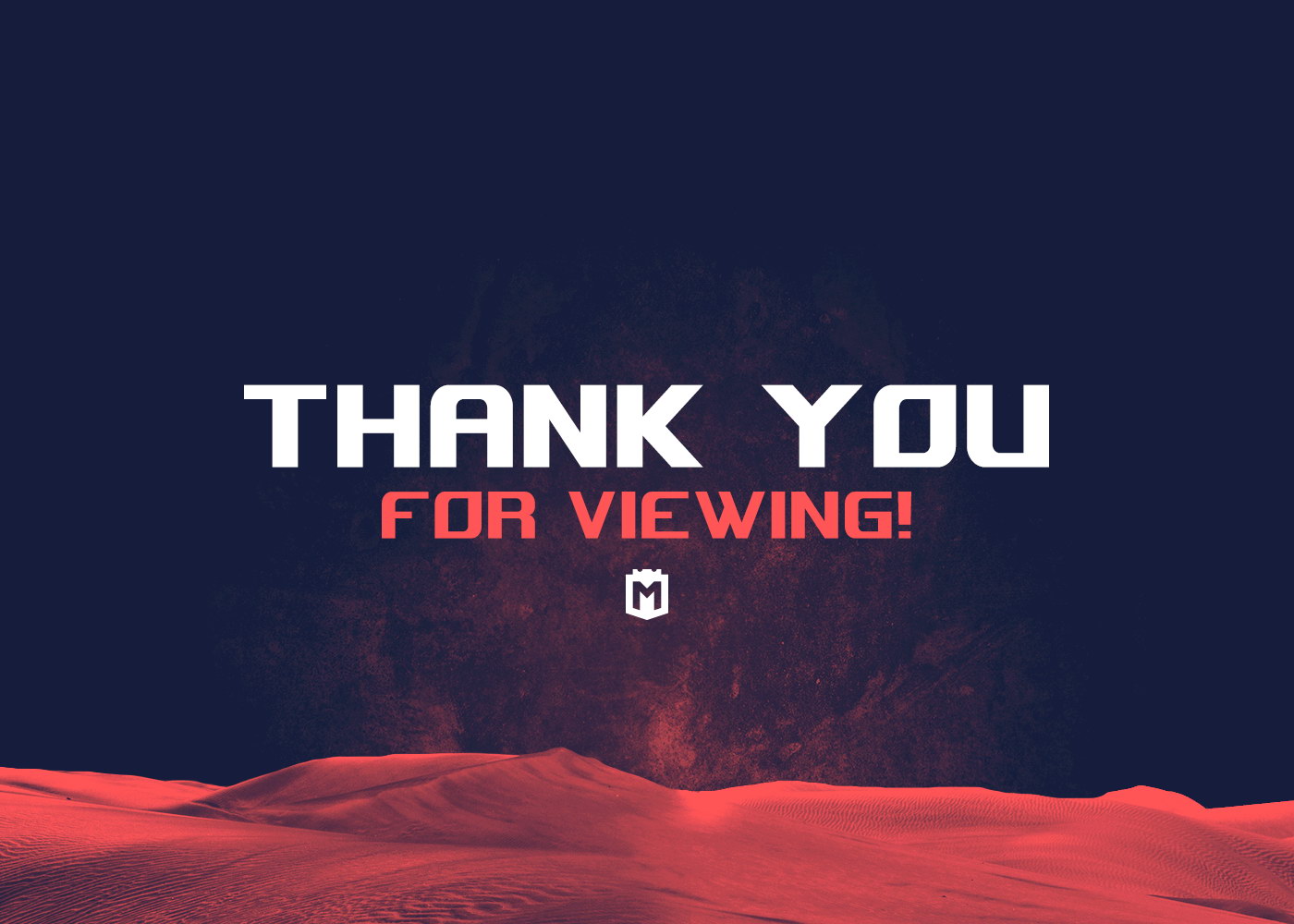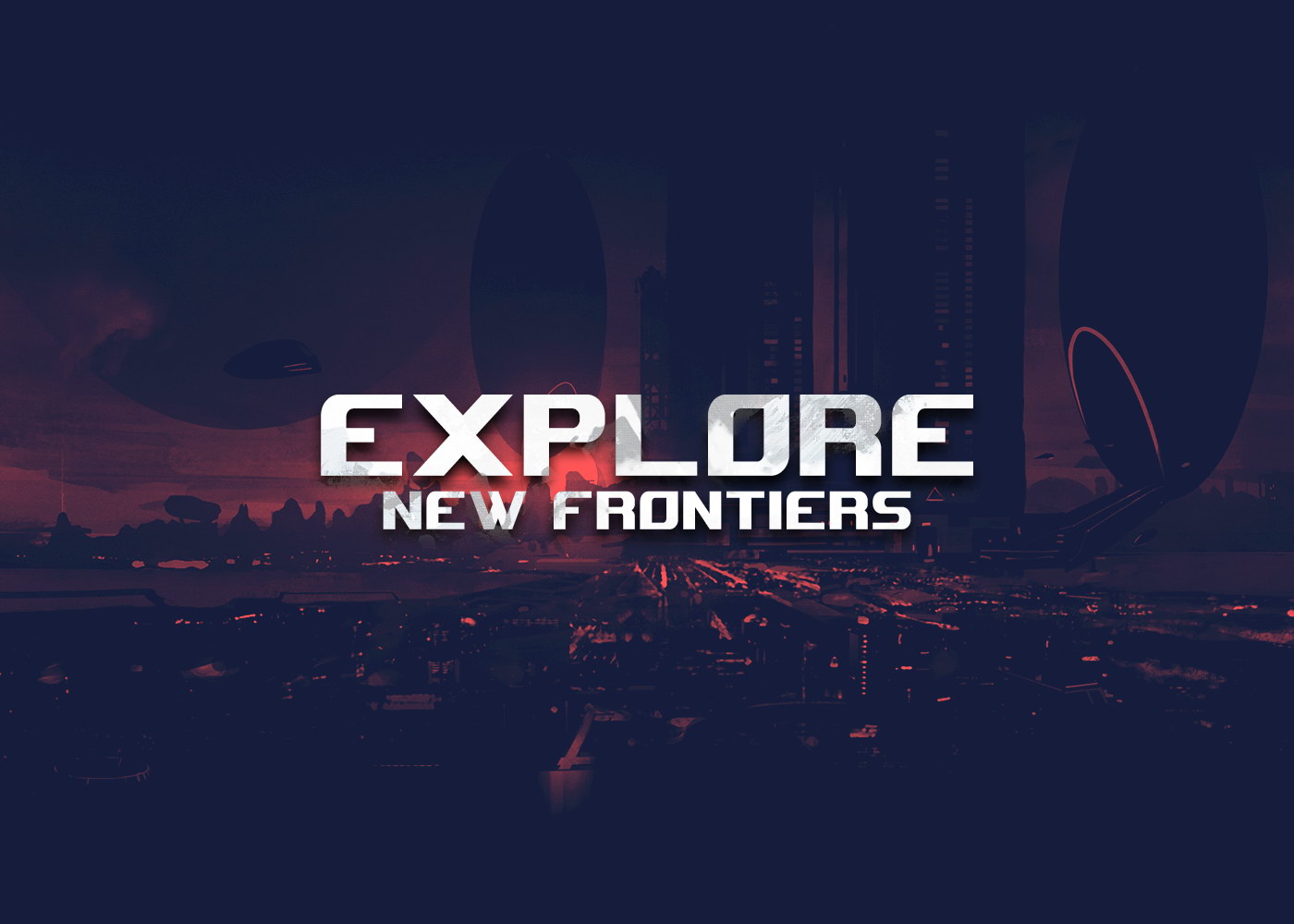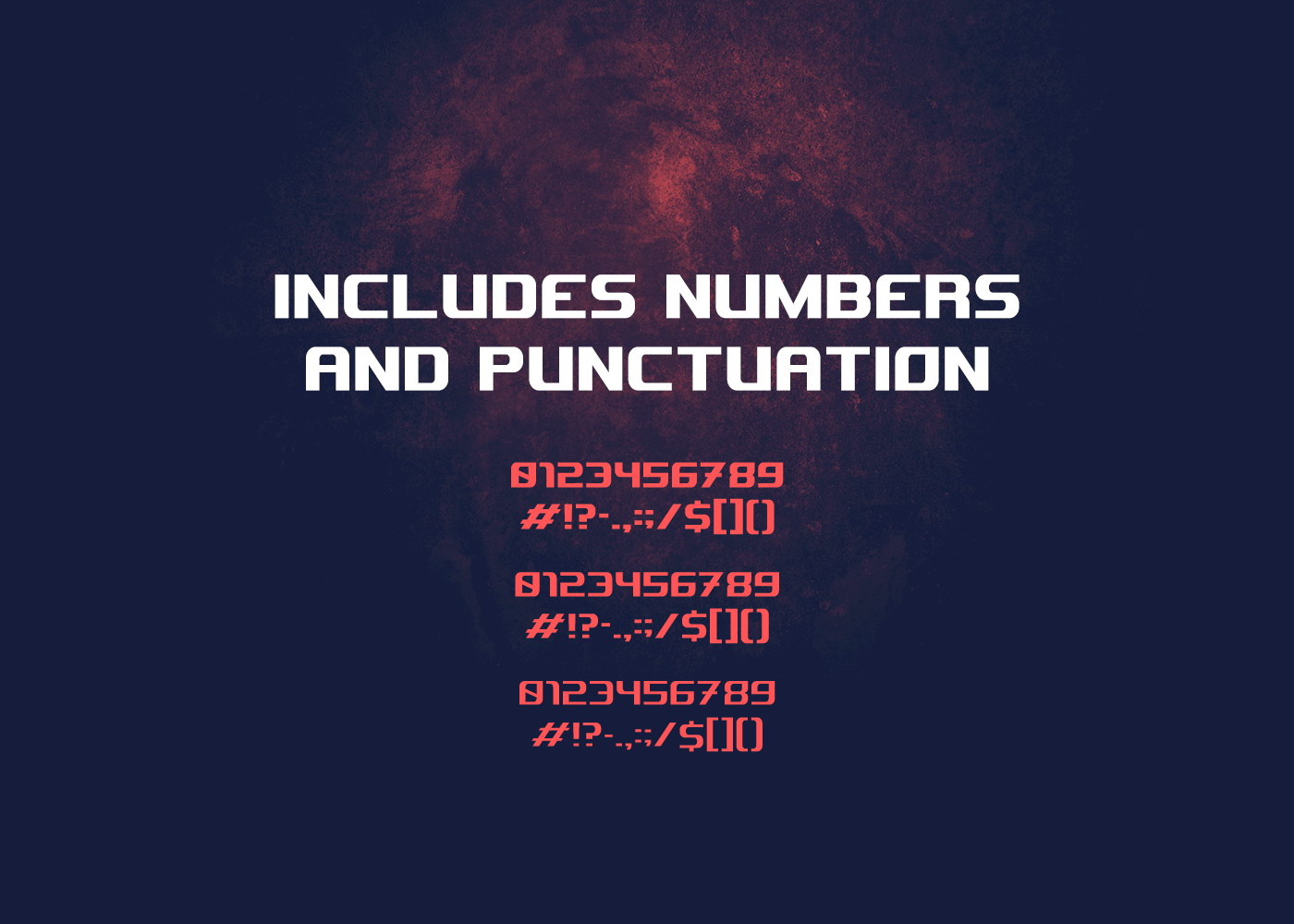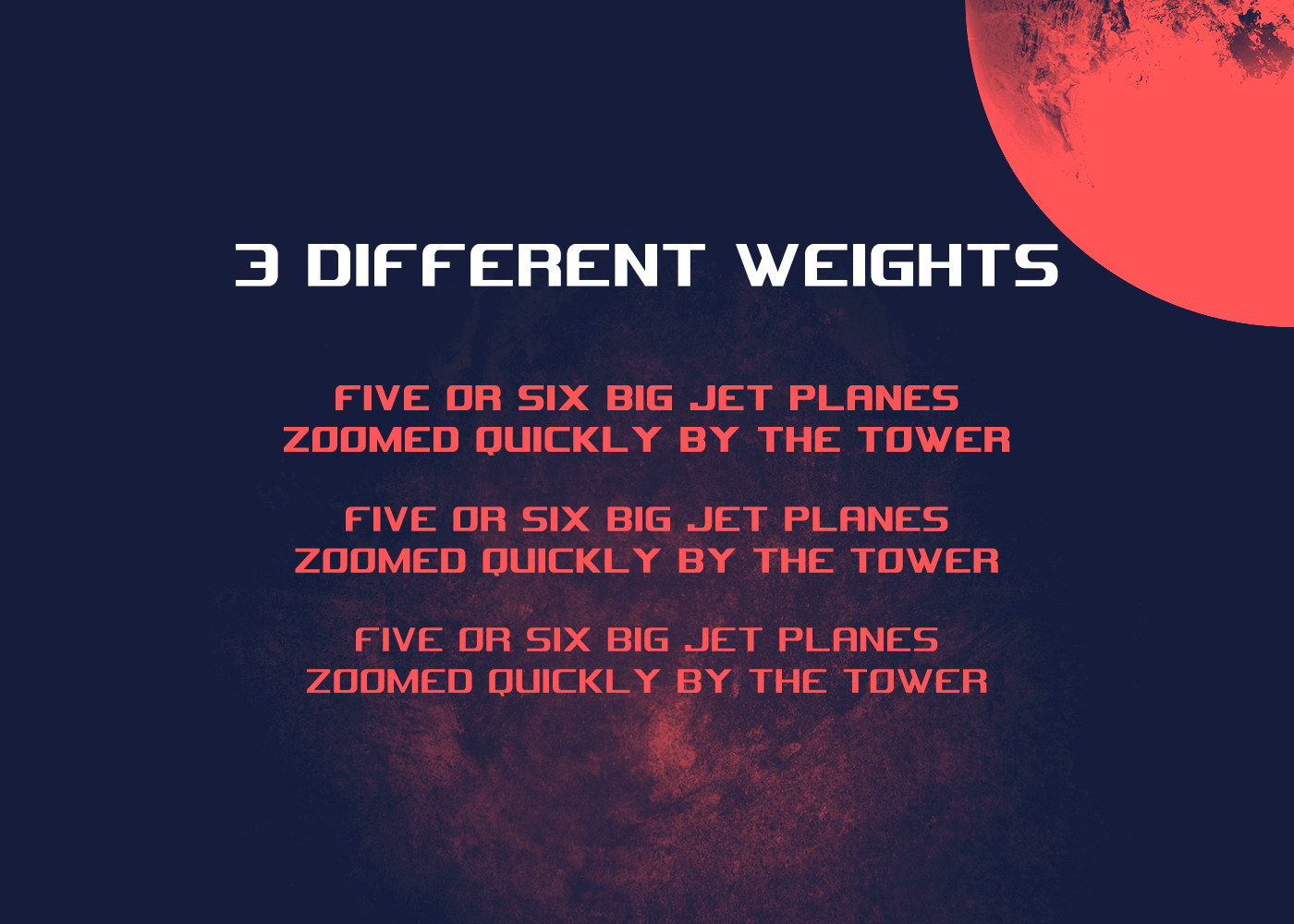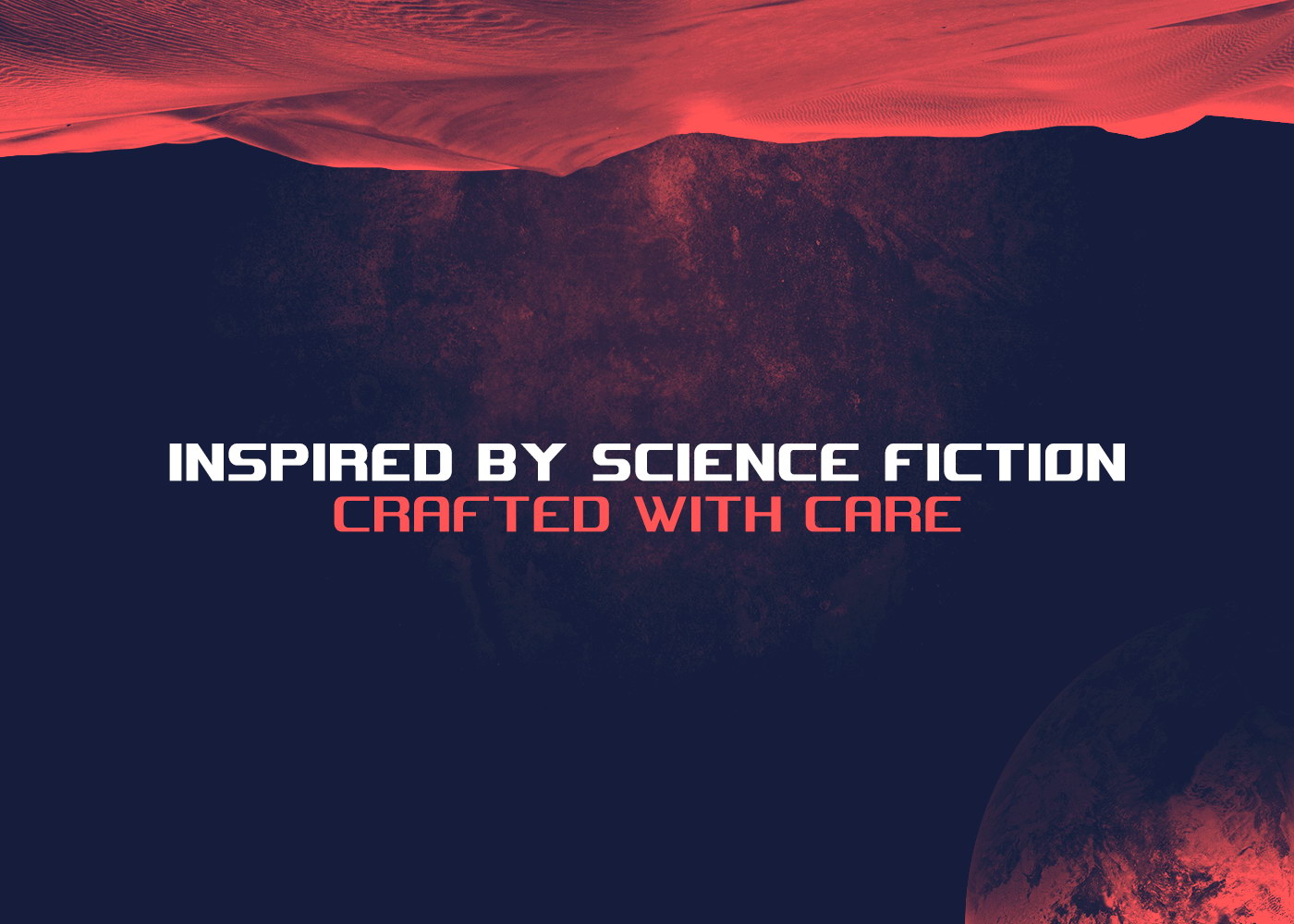
Free Astron Font
Astron is a sans serif font family inspired by text found in science fiction. The display font family includes light, regular, and bold weights.